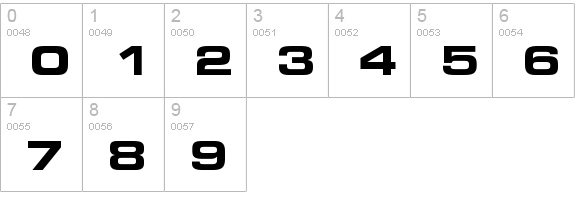
Eurostile LT Bold Extended #2 is a strong, high-contrast, extended-width variant in the Eurostile typeface family \xE2\x80\x94 well suited to headlines, attention-grabbing titles, and strong calls-to-action.
Eurostile LT Bold Extended #2 font is a modern and versatile typeface that exudes a sense of confidence and professionalism. With its bold design and extended character set, this font is perfect for creating impactful headlines, posters, and branding materials. The clean lines and geometric shapes give it a sleek and contemporary look that will make your designs stand out. What's even better is that Eurostile LT Bold Extended #2 font is available for free download at FontsMarket.com. This means you can easily access this high-quality font to enhance your projects without any cost. Whether you're a designer looking to add a bold touch to your work or a business owner wanting to elevate your brand's visual identity, this font is a fantastic choice that won't break the bank. Download Eurostile LT Bold Extended #2 font today and take your designs to the next level!